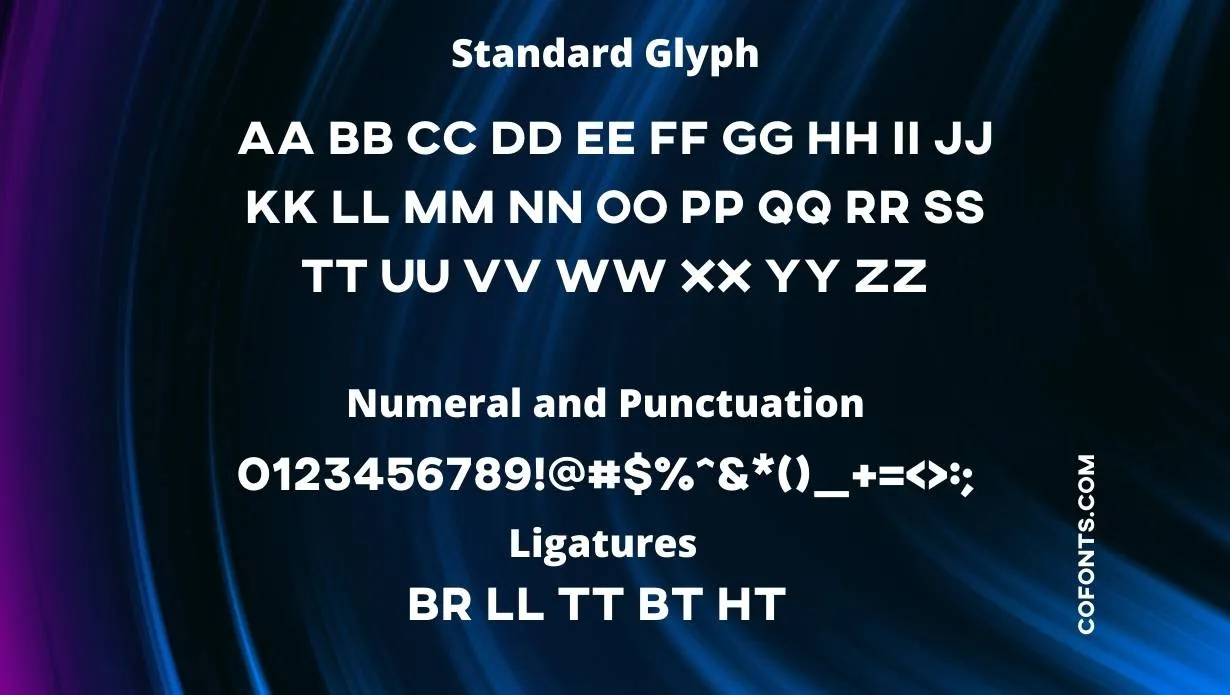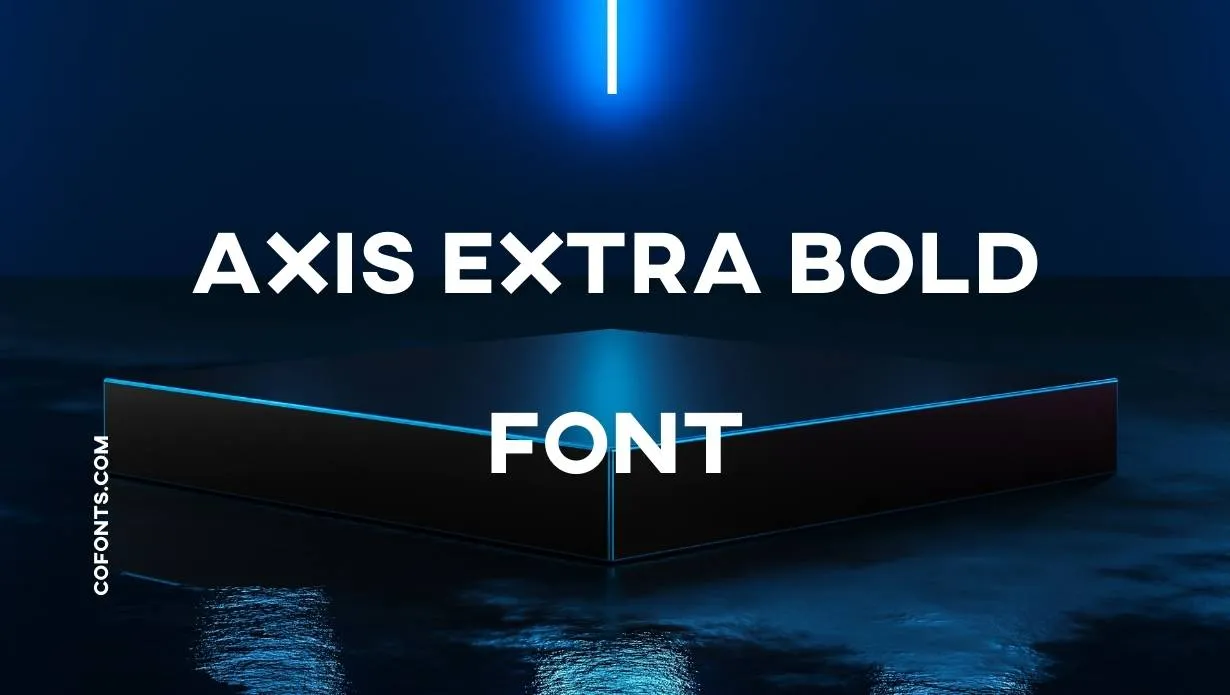
Presenting you a dashing bold and advanced style of the letterform, which is known as Axis Extra Bold Font. This is a typeface, which is the group member of the sans serif family texture.
It carries an Extra bold and string texture appearance, which is designed by a well-reputed typeface and graphic designer, who is known as Jean Wojciechowski. The similar and the pairing font to this typeface is nike just do it font.
Usage of Axis Extra Bold Font
This is an extra bold style of typeface, that has a simple, clean, and bold typeface appearance of a sans serif font. This is an eye-catching and attractive typeface for all types of big-screen designs. This typeface is amazing for large posters, flyers, and banners.
You can use Axis Extra Bold font for headlines and breaking news. This is a great texture for heading and titling. You can use this outstanding typeface This is a great typeface for logos, graphic designs, and homeware designs as well. you can use this typeface for book covers, and large and extra-large sizes of digital and print screen output.
Axis Extra Bold Font Family View
Name | Axis Extra Bold Font |
Style | Sans Serif |
Designer | Jean Wojciechowski |
What is an Axis Extra Bold typeface?
Axis Extra Bold Font is a typeface, which is the group member of the sans serif family texture. It carries an Extra bold and string texture appearance.
Can I use Axis Extra Bold typeface for the logo?
Yes, this is one of the bold styles of texture, that is the best fit for all types of monograms and logos. Because many designers are using this font for a logo.
What texture goes with Axis Extra Bold?
There are a lot of typefaces that get match this font, but the most similar and paired font to this texture is the time new roman font.